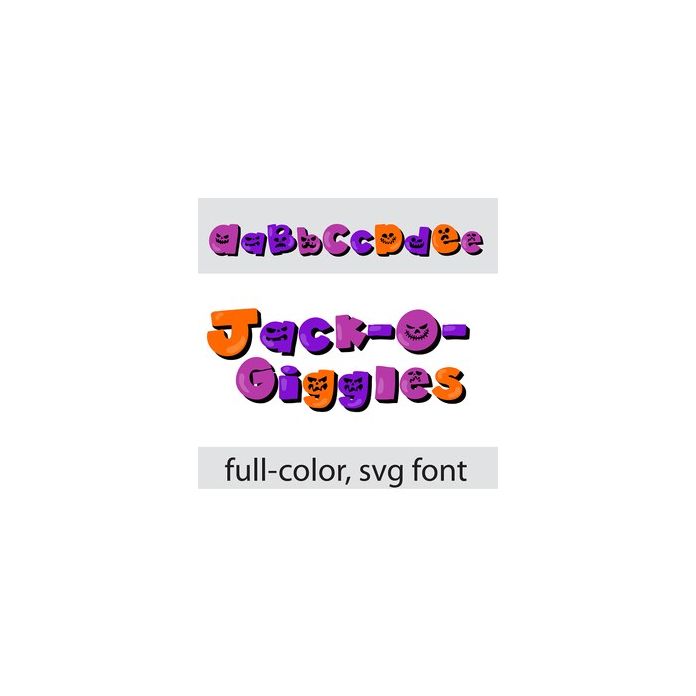
This full-color font features adorable, whimsical lettering with heave black shadows and jack-o-lantern faces throughout. There is an alt case w/ additional colors you can access through your system or Silhouette's glyph map.